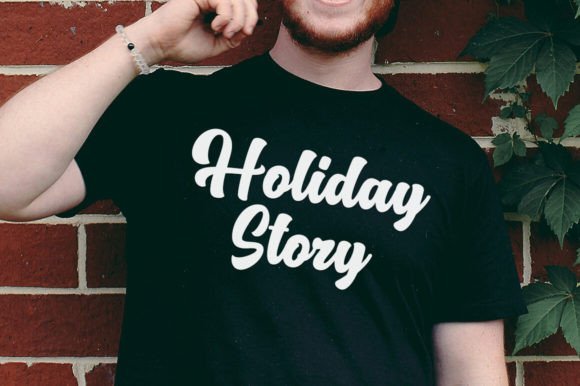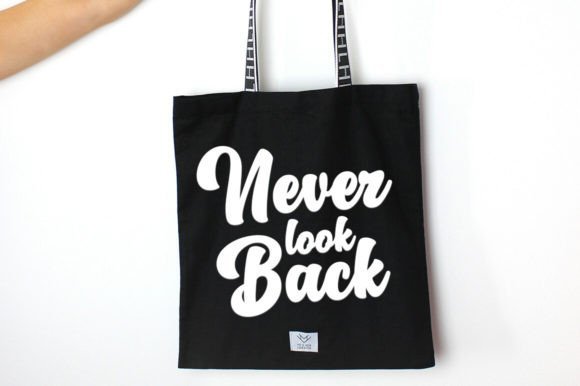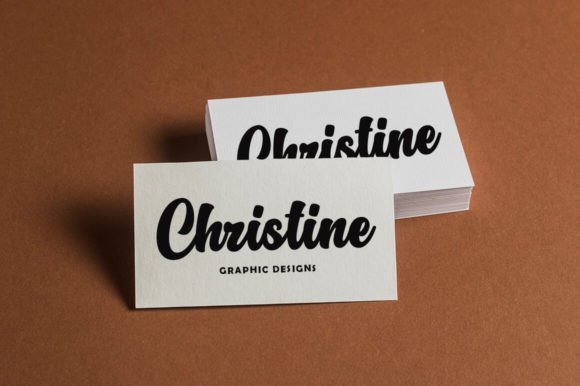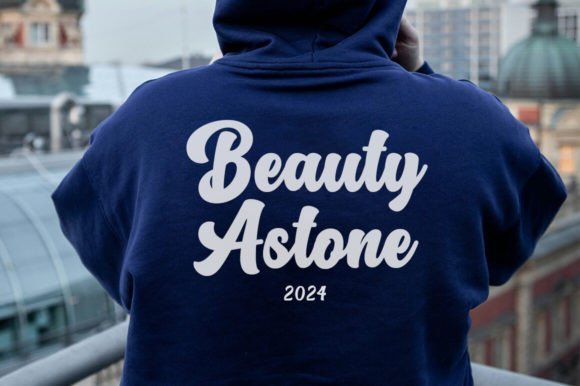
Moking Font
Step into the world of vintage elegance with Moking, a bold script font with a twist. At the heart of Moking lies a joyful essence that infuses life and vigor into your designs, adding an enigmatic charm that’s hard to resist. Imagine Moking gracing your most creative ideas, creating a standout visual appeal. Its beautiful display adds character to each detail, immense beauty at each curve and bend, ensuring your design not only speaks but resonates. Lend your creativity the splendid charm of Moking and experience how it transforms them into mesmerising pieces of art.